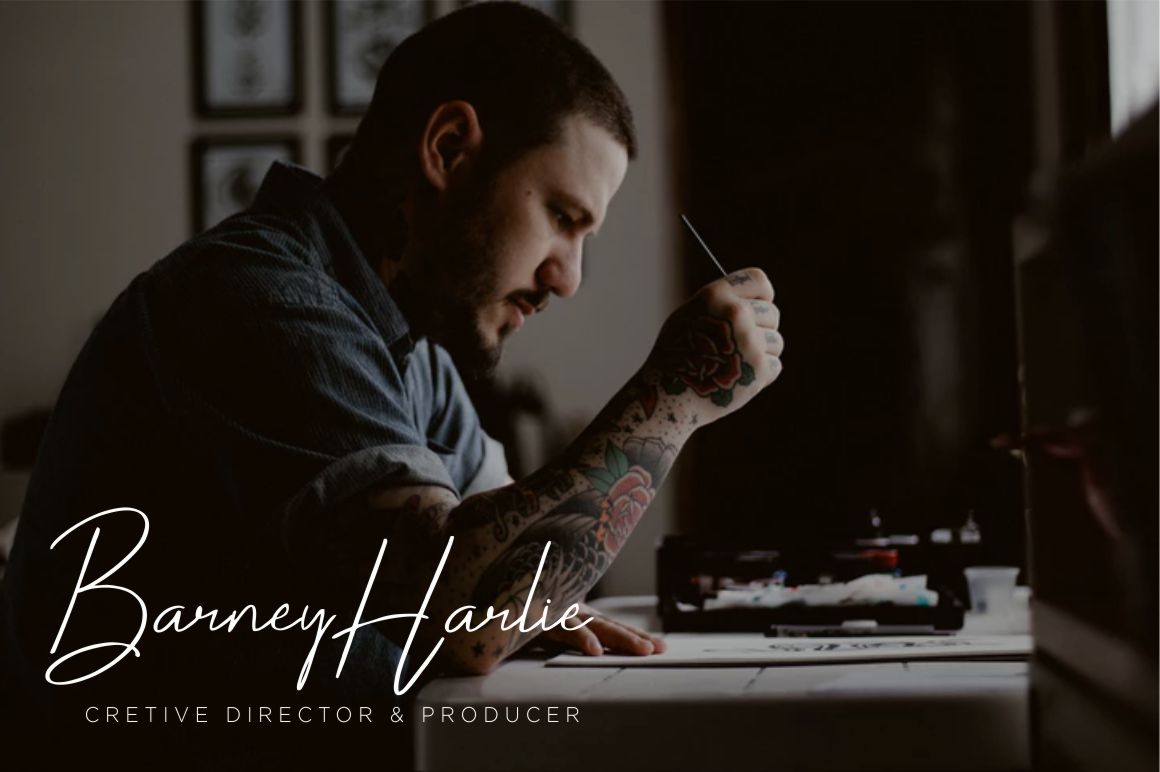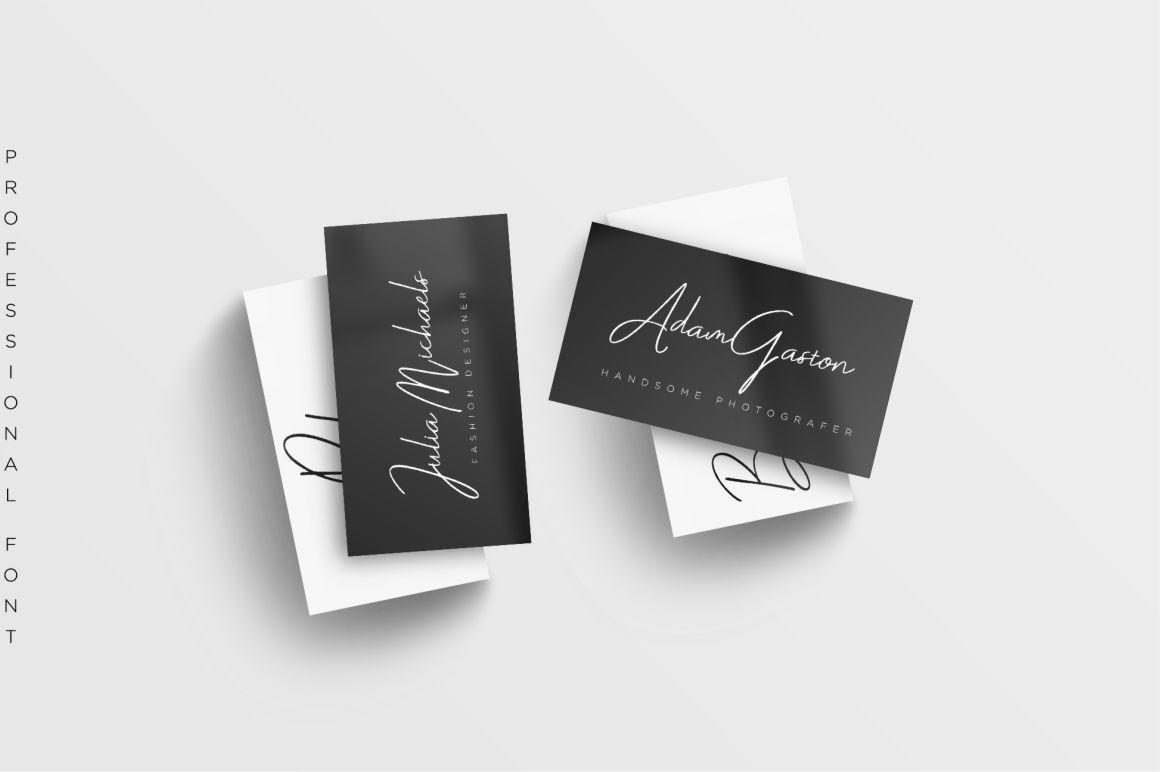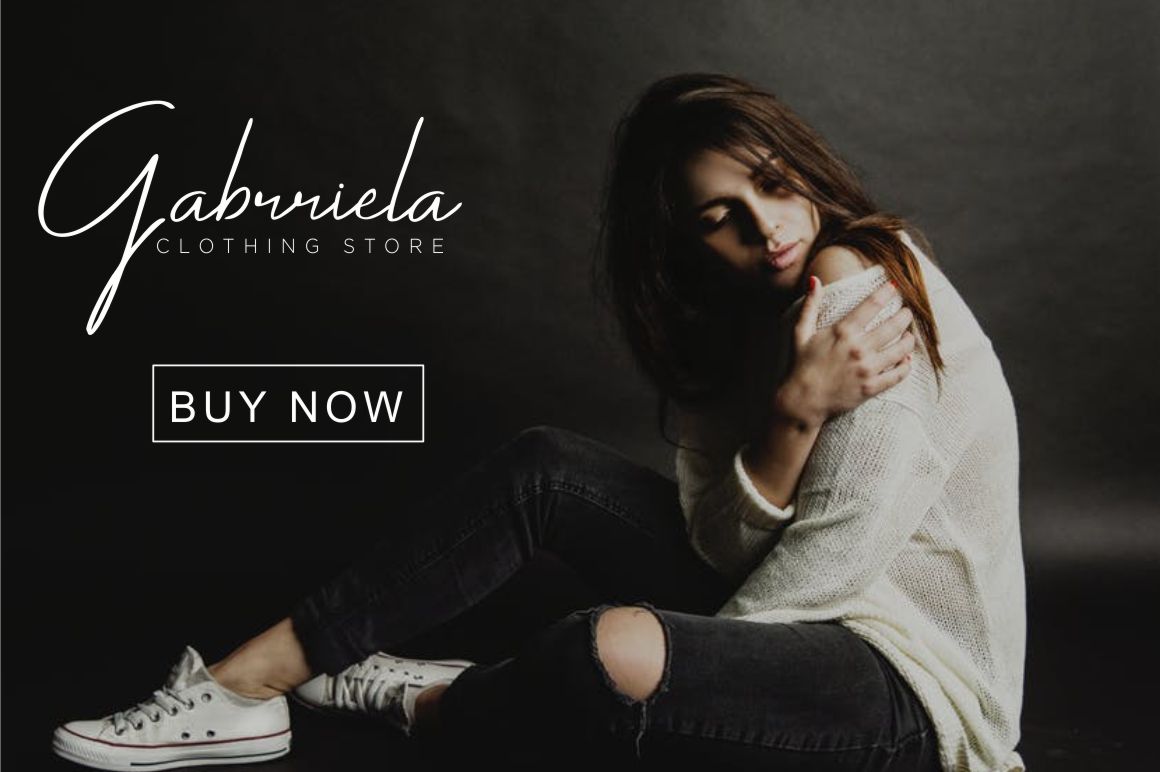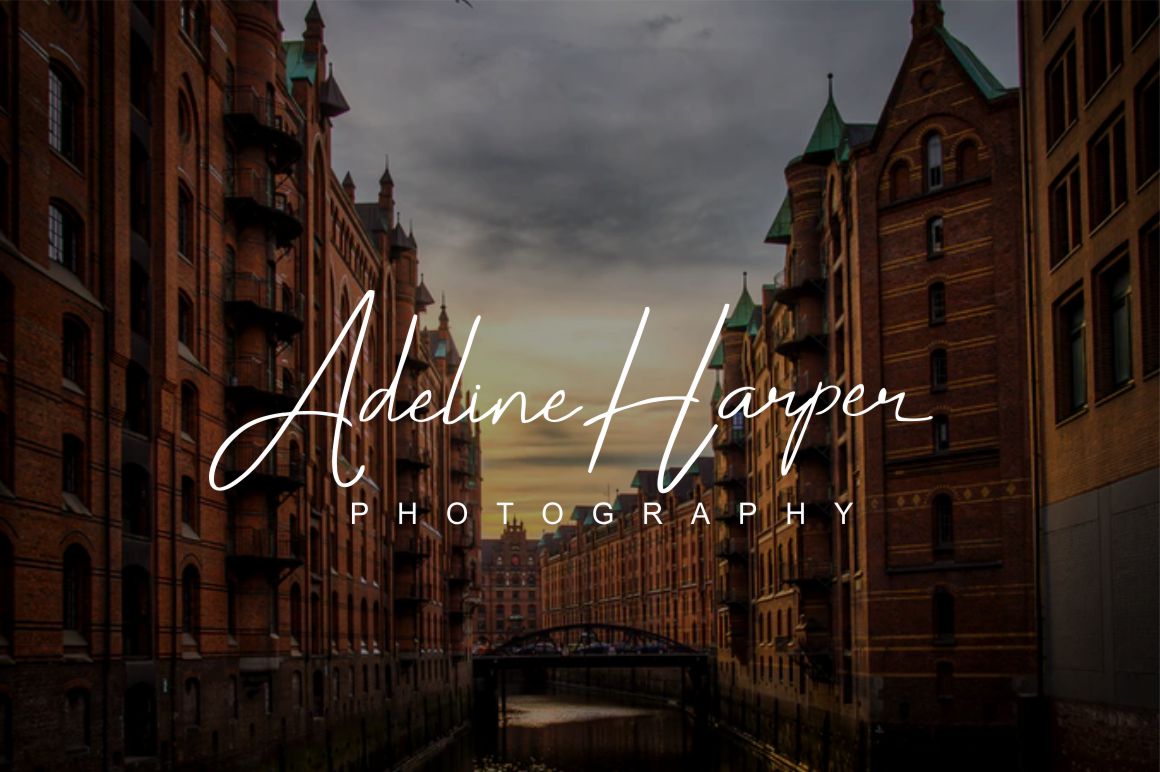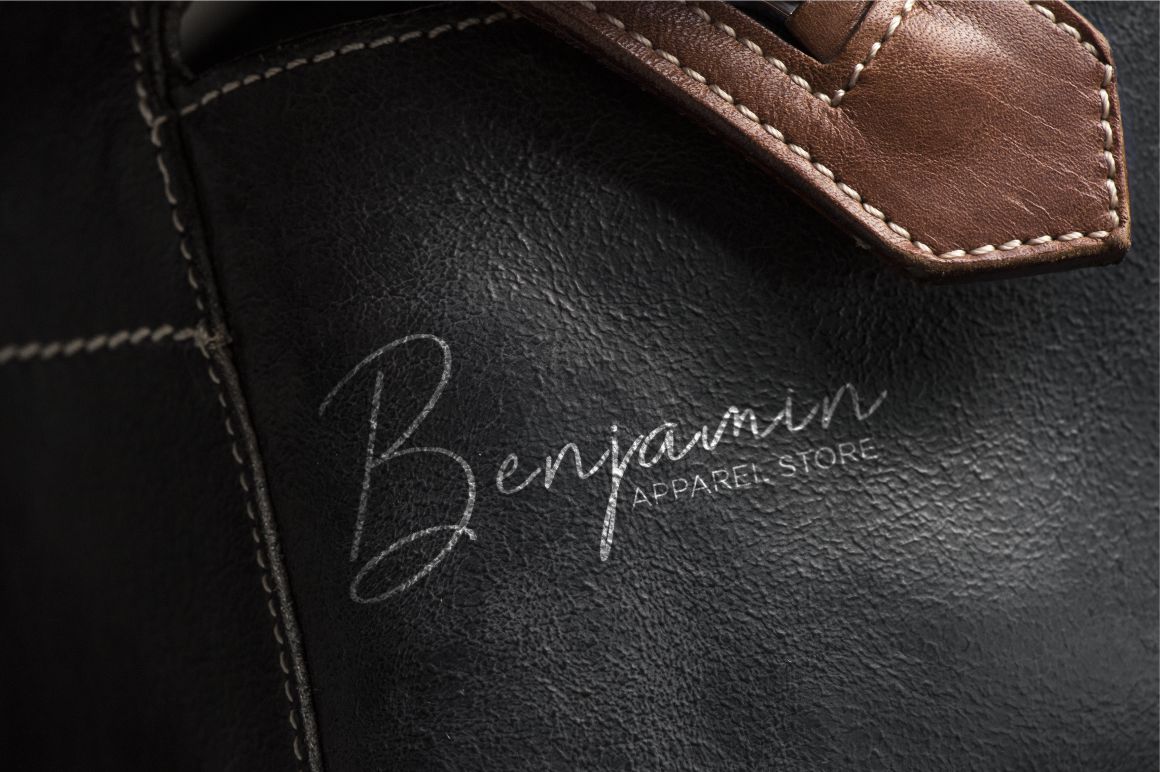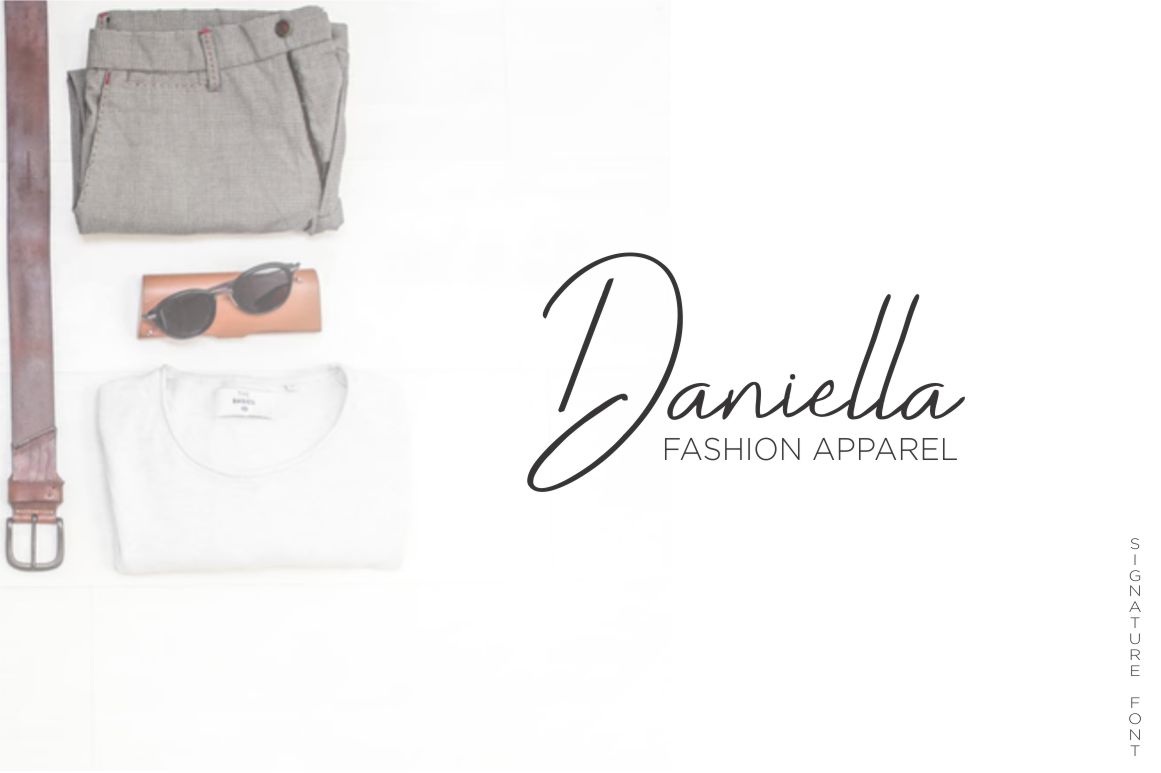
Introducing the Darcey Oliver Font: Elevate Your Designs with Elegance and Charm
In the world of typography, fonts play a crucial role in conveying the tone and personality of a design. For those seeking to infuse their projects with a touch of romance and sophistication, the Darcey Oliver font is an excellent choice. This elegant signature font is designed to add a dash of charm to various designs, making it a versatile tool for creatives.
The Darcey Oliver Font: A Perfect Blend of Elegance and Versatility
The Darcey Oliver font boasts an elegant and refined appearance, characterized by its fluid strokes and beautiful letterforms. Its classic script style exudes a sense of luxury and sophistication, making it perfect for designs that require a high-end feel. Whether you’re working on a wedding invitation, a fashion brand’s logo, or a book cover, this font is sure to elevate your design to the next level.
Ideal Use Cases for the Darcey Oliver Font
While the Darcey Oliver font functions most strongly as a display or headline font, its versatility extends to various design applications, including:
- Logos and Logotype: Create a lasting impression with a custom logo that showcases your brand’s personality and style.
- Branding: Develop a cohesive visual identity for your business or product with the Darcey Oliver font.
- Wedding Invites & Decorations: Add a touch of romance and whimsy to your wedding stationery and decorations.
- Fashion: Elevate your fashion brand’s visual identity with a sophisticated and stylish font.
- Labels: Create eye-catching labels for products, gifts, or promotional materials.
- Book Covers: Draw readers in with a captivating book cover that features the Darcey Oliver font.
- T-Shirts: Design custom apparel that makes a statement with this elegant font.
- Instagram Posts: Stand out on social media with beautifully designed graphics and quotes.
Why Choose the Darcey Oliver Font?
With the Darcey Oliver font, you can:
- Add a Touch of Romance: Infuse your designs with a sense of elegance and whimsy.
- Enhance Readability: The font’s clear and refined letterforms ensure that your message is conveyed effectively.
- Increase Versatility: Use the Darcey Oliver font across various design applications to maintain consistency and visual appeal.
- Save Time: With a font that’s easy to read and works well in multiple contexts, you can focus on other creative aspects of your project.
Tips for Using the Darcey Oliver Font Effectively
To get the most out of the Darcey Oliver font, consider the following tips:
- Pair with Complementary Fonts: Combine the Darcey Oliver font with sans-serif or serif fonts to create visual interest and hierarchy.
- Experiment with Colors: Try pairing the font with rich, bold colors or soft pastels to match your design’s tone and style.
- Play with Sizes: Use the Darcey Oliver font in various sizes to create visual emphasis and draw attention to key elements.
The Darcey Oliver font is an elegant and versatile design tool that’s perfect for creatives seeking to add a touch of romance and sophistication to their projects. With its classic script style, fluid strokes, and refined letterforms, this font is sure to elevate your designs and leave a lasting impression. Whether you’re working on a wedding invitation, a fashion brand’s logo, or a book cover, the Darcey Oliver font is an excellent choice for designers and crafters looking to create beautiful and effective designs.